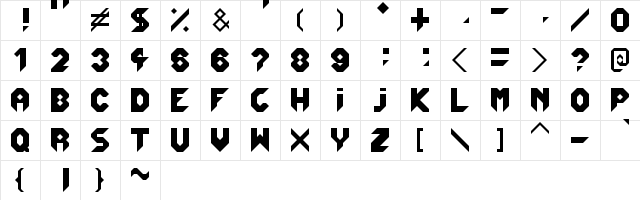
Order Of Elephants Regular
| Designer | johnnywebmaker |
Order Of Elephants is a composed and adaptable typeface that performs quietly and consistently across a wide range of design contexts.